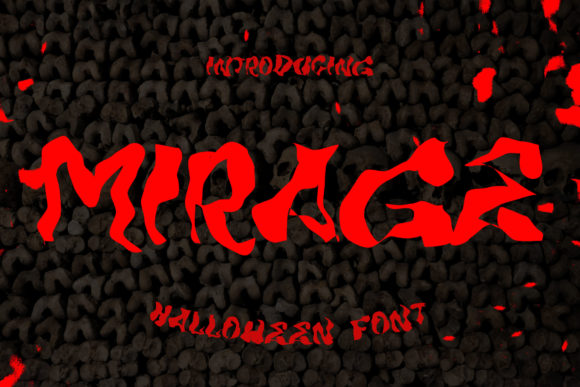
In a realm where creativity reigns supreme and design takes center stage, allow us to introduce you to Mirage Font, a typeface that will unleash your imagination and leave you spellbound. This extraordinary display font from the ingenious mind of dwikrisdiantoro9 is more than just a collection of letters; it's an artistic masterpiece waiting to be explored.
Embark on a typographic journey to a world of captivating flat UI design, where Mirage Font dances across the screen with its cool, bold, and captivating presence. Its meticulously crafted curves and sharp edges evoke a sense of intrigue, adding an air of mystery and allure to your digital creations.
Are you ready to escape the mundane and dive into a world of visual enchantment? Let Mirage Font be your guide as you navigate through the vast landscapes of digital design. Its versatility knows no bounds, seamlessly adapting to a myriad of projects, from spine-tingling Halloween crafts to haunting horror movie posters, from stylish t-shirts to spellbinding marketing materials. Unleash your inner artist and let Mirage Font ignite your creative spark.
As darkness descends upon your screen, Mirage Font emerges from the shadows, its ethereal form captivating your senses. Its meticulously crafted glyphs dance across the digital canvas, leaving a trail of visual splendor in their wake. Prepare to be mesmerized as this enigmatic display font commands attention with its bold strokes, sharp angles, and captivating curves.
Enter the realm of the extraordinary, where the ordinary is transformed into the extraordinary. With Mirage Font as your artistic ally, you'll discover a world where creativity flourishes and design dreams take flight. Join us on this typographic adventure, where Mirage Font awaits to unlock the true potential of your imagination. Embrace its haunting beauty and watch as your digital creations come alive with a life of their own.